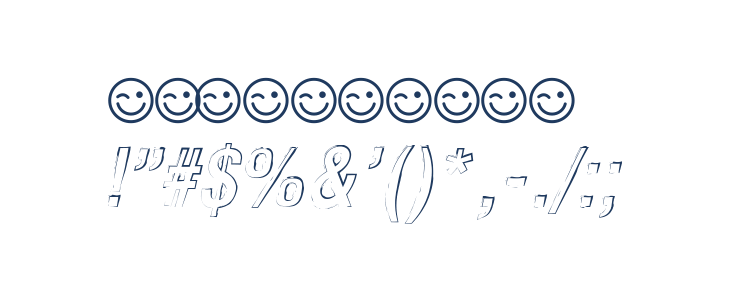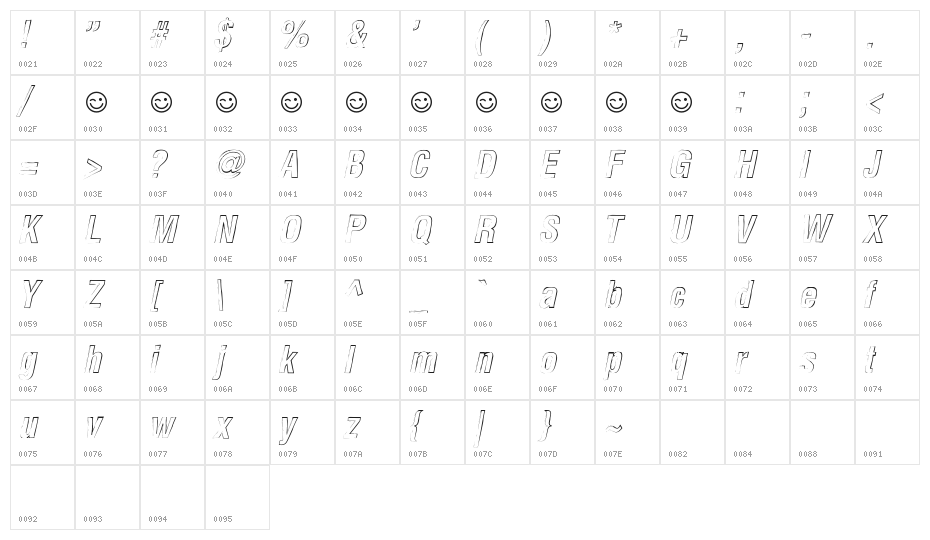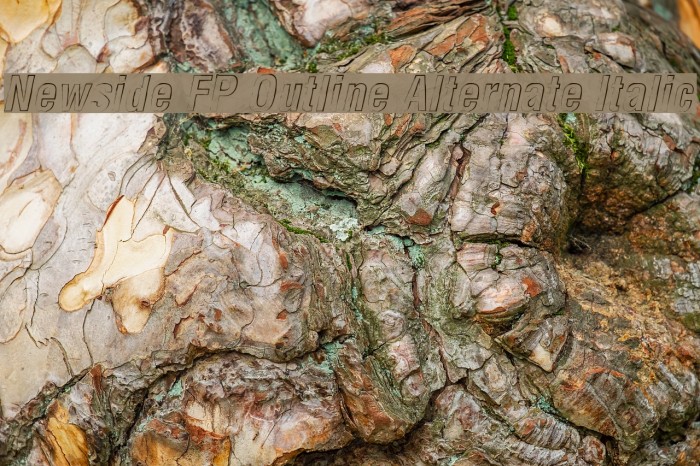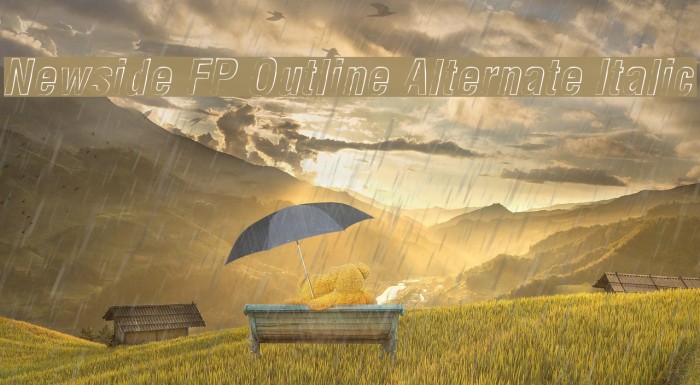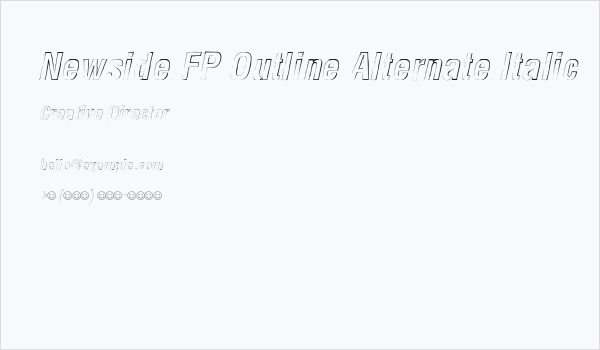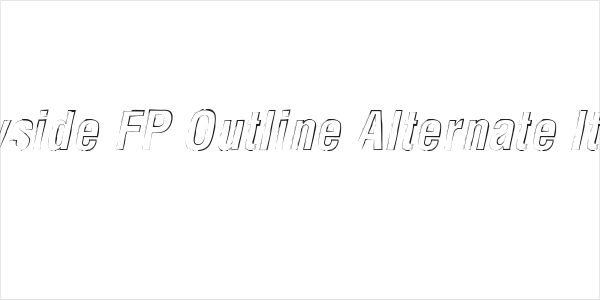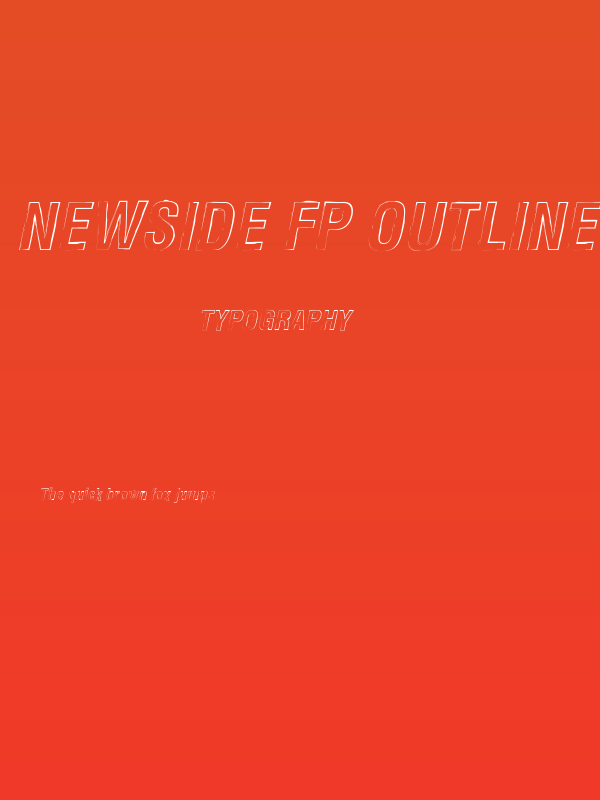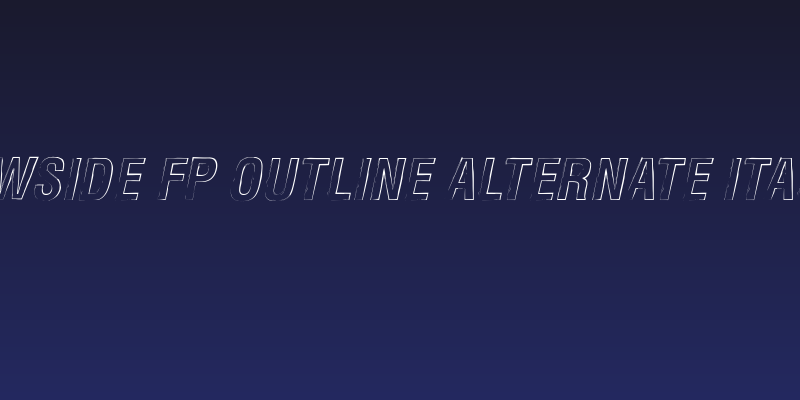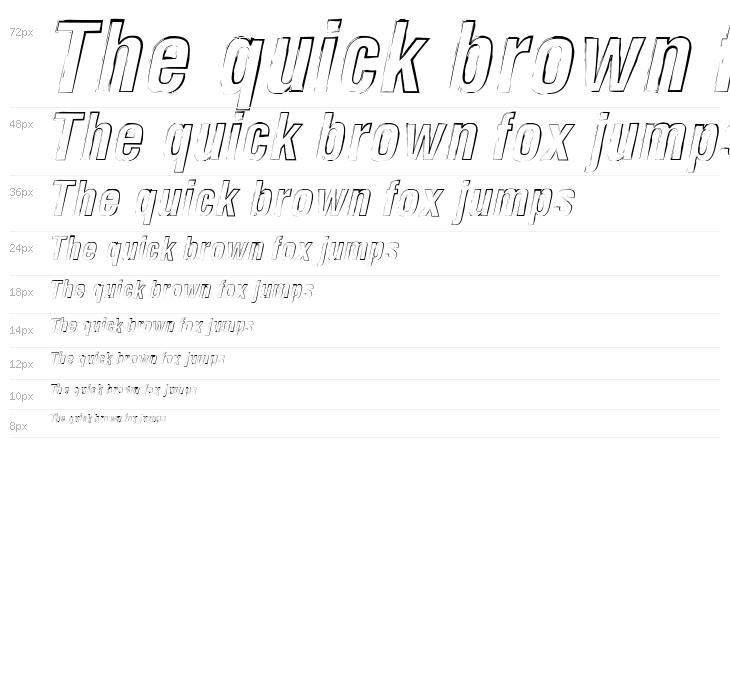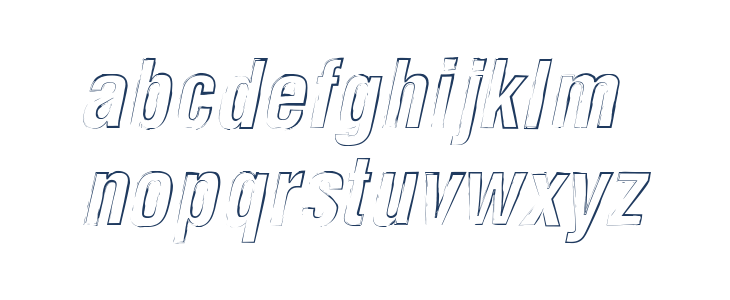
Newside FP Outline Alternate Italic Font
Newside FP Outline Alternate Italic Description
This font features an outline style with a modern and sleek appearance. The characters are italicized, giving them a dynamic and forward-leaning posture. The uppercase and lowercase letters maintain a consistent height and width, creating a balanced and uniform look. The outline adds a unique dimension, making the text appear both bold and airy. The font includes a full set of uppercase and lowercase letters, numbers, and a variety of special characters, ensuring versatility for different design needs. The smiley face symbols add a playful touch, making it suitable for informal and creative projects.
| Proposed Projects | Ideal for branding, headlines, posters, and creative designs that require a modern and distinctive look. |